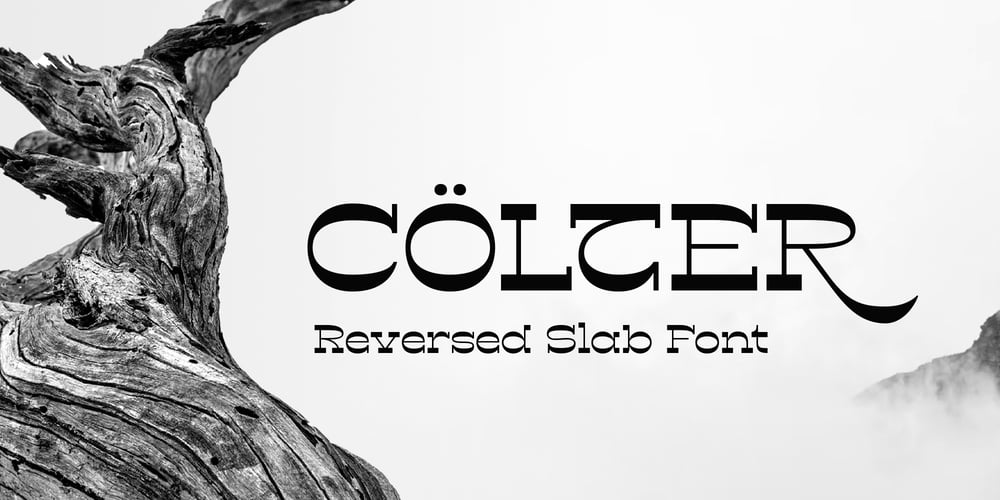
Colter Font Family was designed by Ryan Prasetya and published by Lostvoltype. Colter contains 1 styles and family package options. COLTER a new reversed font Slab fonts with reversed contrast are an eye-catching typographic choice that challenge conventional design norms. Traditionally known for their robust, block-like serifs, these unique fonts feature lighter strokes in the letter bodies while retaining bold, prominent serifs. This inversion not only creates a dynamic visual impact but also draws attention and infuses any design with an unmistakable flair that sets it apart.